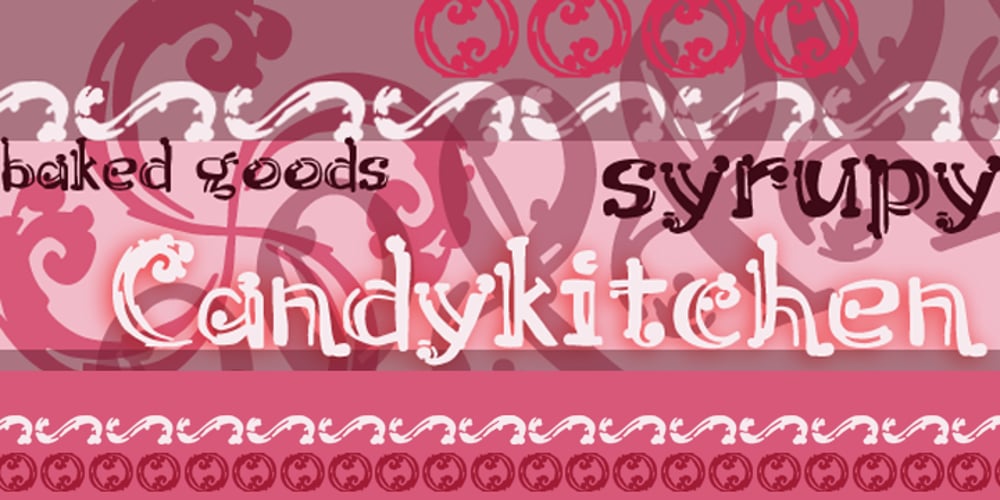
Candykitchen Font Family was designed by Joe VanDerBos and published by Vanderfont. Candykitchen contains 1 styles and family package options. Casual and sugary, Candykitchen is an inline face with a weight problem. Frosted with occasional swashy finishing strokes and a few errant bulbous terminals, this face wants space in your cupboard.